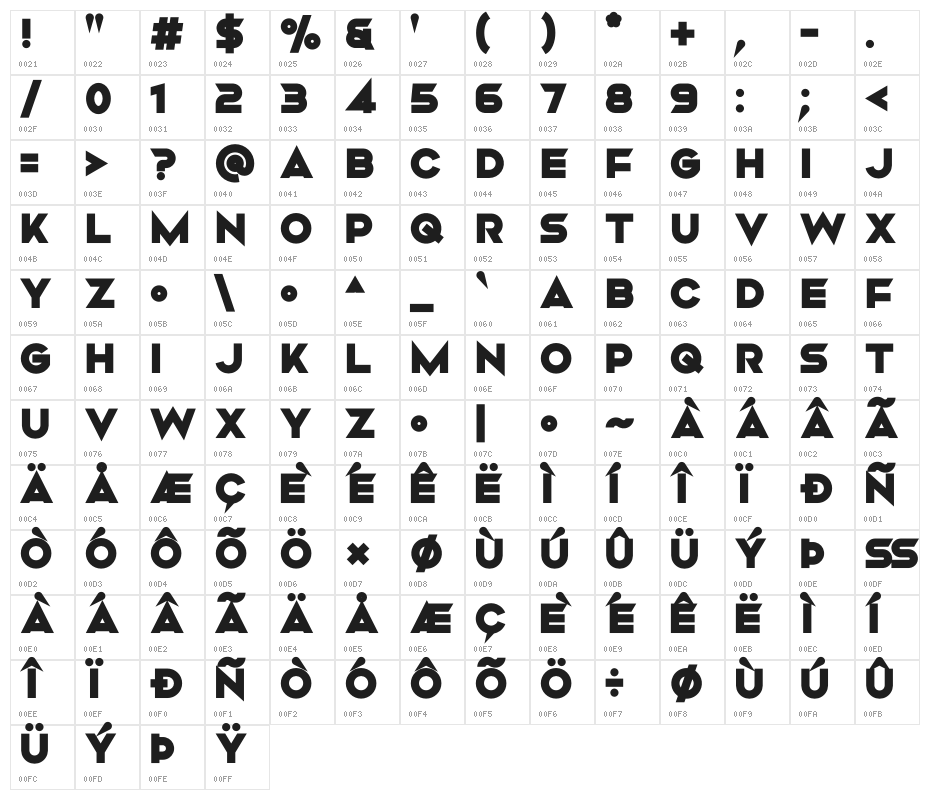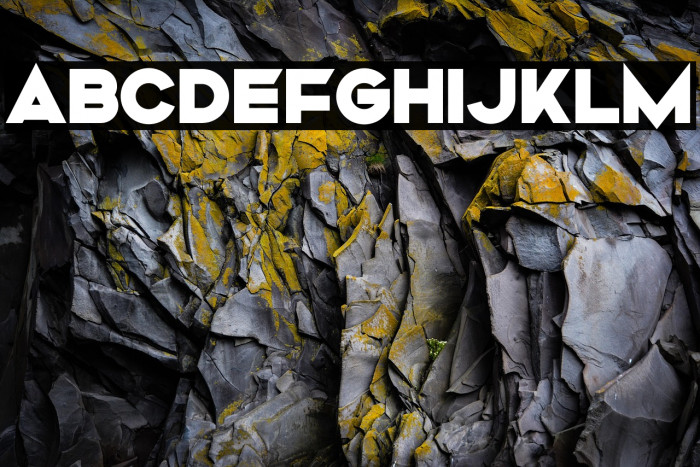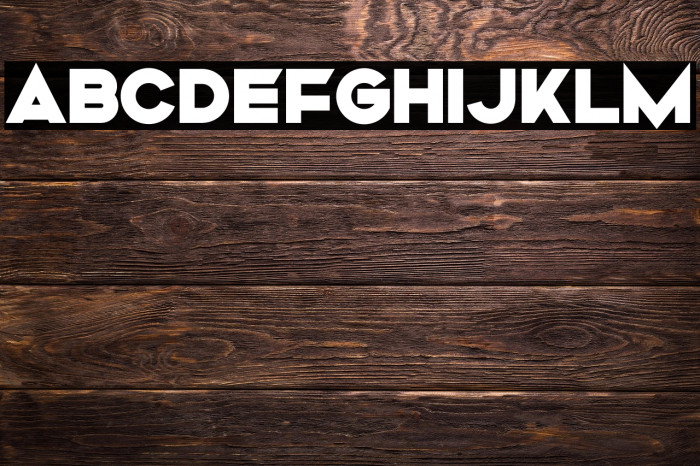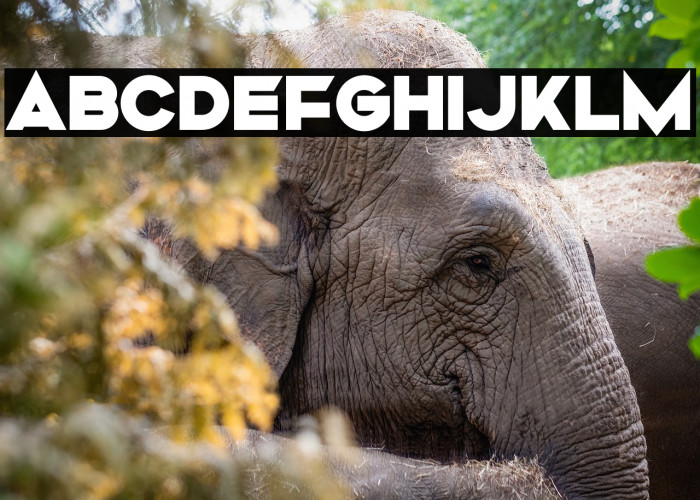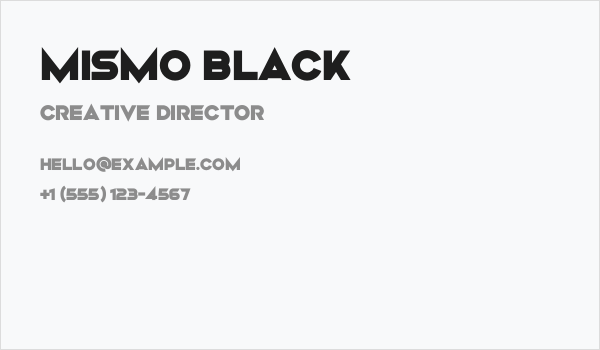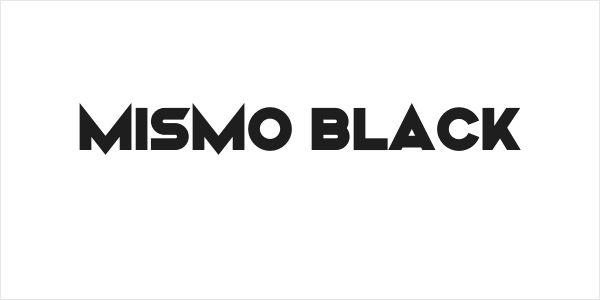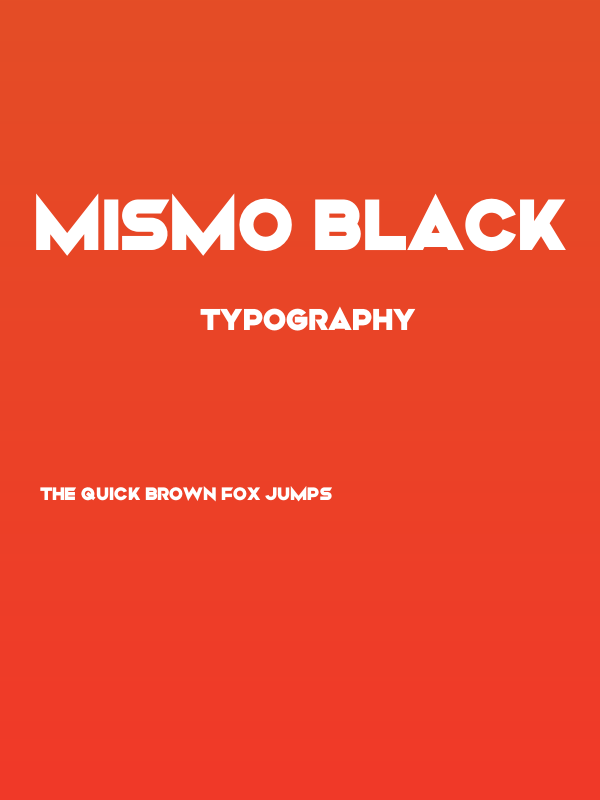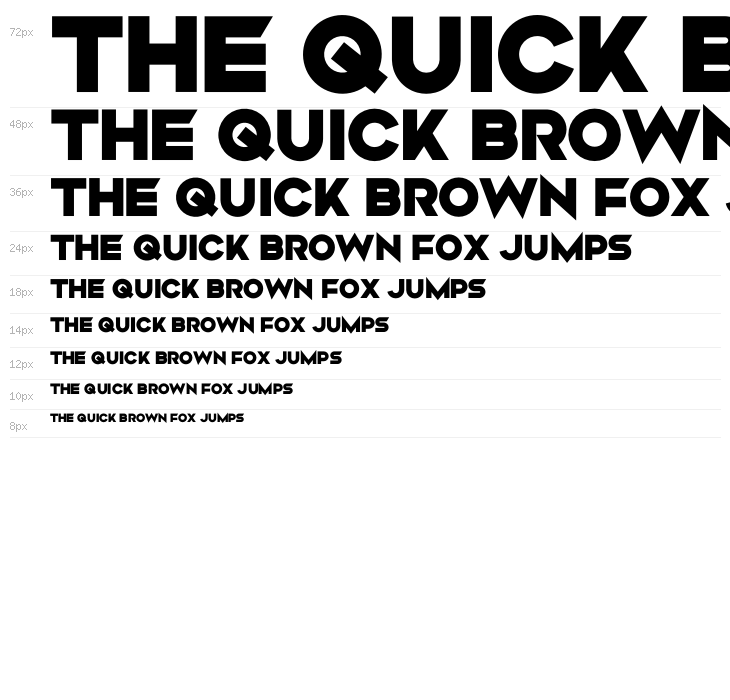
Mismo Black Font
Mismo Black Description
This font features bold, geometric letterforms with a strong presence. The characters are constructed with sharp angles and clean lines, giving it a modern and assertive look. The uppercase letters are particularly striking, with a uniform height and width that create a cohesive appearance. The numerals and special characters maintain the same bold style, ensuring consistency across all text elements. This font's design is ideal for making a strong visual impact, with its high contrast and solid structure.
| Proposed Projects | Ideal for branding, posters, headlines, and any project requiring a strong, modern aesthetic. |